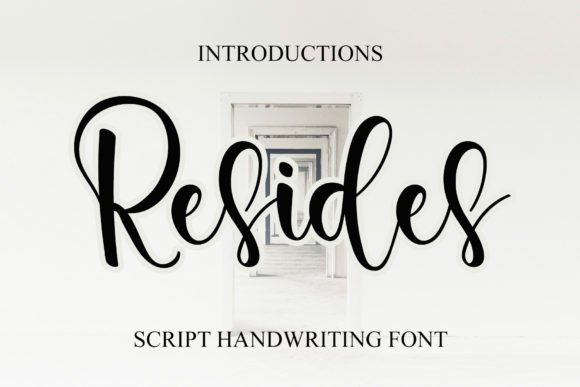
Introducing Resides Font: A Lovely and Sweet Handwritten Script Font
Are you looking for a font that can add a touch of joy and romance to your designs? Look no further than Resides Font, a beautiful handwritten script font that is perfect for a variety of design projects. In this article, we’ll take a closer look at Resides Font, its features, and how you can use it to elevate your designs.
What is Resides Font?
Resides Font is a handwritten script font that is designed to add a personal and emotional touch to your designs. It’s a lovely and sweet font that is perfect for creating romantic and whimsical designs. The font is carefully crafted to ensure that it’s easy to read and looks great on a variety of devices.
Features of Resides Font
Resides Font has several features that make it a great choice for designers. Some of its key features include:
- Handwritten script font: Resides Font is a handwritten script font that adds a personal touch to your designs.
- Lovely and sweet: The font has a lovely and sweet appearance that’s perfect for creating romantic and whimsical designs.
- Easy to read: The font is carefully crafted to ensure that it’s easy to read on a variety of devices.
- Versatile: Resides Font can be used for a variety of design projects, including wedding designs, branding, and more.
How to Use Resides Font
Resides Font is a versatile font that can be used for a variety of design projects. Here are some ideas for using Resides Font:
- Wedding designs: Resides Font is perfect for creating romantic wedding designs, including wedding invitations, save the dates, and more.
- Branding: The font can be used to create a personal and emotional brand identity that’s perfect for businesses that want to connect with their customers on a deeper level.
- Social media graphics: Resides Font can be used to create social media graphics that are visually appealing and engaging.
- Stationery: The font can be used to create beautiful stationery, including notecards, letterheads, and more.
Benefits of Using Resides Font
There are several benefits to using Resides Font in your designs. Some of the benefits include:
- Unique and creative: Resides Font is a unique and creative font that can help you stand out from the crowd.
- Emotional connection: The font can help you create an emotional connection with your audience, which is perfect for businesses that want to build a loyal customer base.
Tips for Using Resides Font
Here are some tips for using Resides Font in your designs:
- Use it sparingly: Resides Font is a beautiful font, but it can be overwhelming if used too much. Use it sparingly to create a beautiful and elegant design.
- Pair it with other fonts: The font can be paired with other fonts to create a unique and creative design.
- Experiment with colors: Resides Font looks great in a variety of colors. Experiment with different colors to find the one that works best for your design.
- Pay attention to spacing: Make sure to pay attention to spacing when using Resides Font. The font can look beautiful with plenty of white space.
Resides Font is a beautiful handwritten script font that is perfect for adding a touch of joy and romance to your designs. With its lovely and sweet appearance, ease of use, and versatility, it’s a great choice for designers who want to create unique and creative designs. Whether you’re creating wedding designs, branding, or social media graphics, Resides Font is a great choice.
- What is Resides Font?: Resides Font is a handwritten script font that is designed to add a personal and emotional touch to your designs.
- Is Resides Font a unique font?: Yes, Resides Font is a unique and creative font that can help you stand out from the crowd.